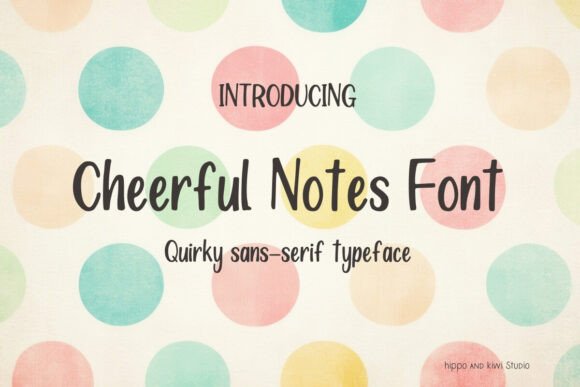
Introducing Cheerful Notes Font: A Playful Handwritten Font to Elevate Your Creative Work
Are you tired of using the same old fonts in your creative projects? Do you want to add a touch of personality and charm to your designs? Look no further than Cheerful Notes Font, a delightful handwritten font that’s perfect for a variety of applications. In this article, we’ll explore the features and benefits of Cheerful Notes, and show you how it can elevate your creative work.
What is Cheerful Notes Font?
Cheerful Notes Font is a playful handwritten font designed to add a touch of whimsy and charm to your creative projects. Its slightly quirky letterforms and natural flow make it perfect for a wide range of applications, from greeting cards and planners to social media graphics and print-on-demand designs.
Ideal Use Cases for Cheerful Notes Font
- Greeting Cards: Add a personal touch to your greeting cards with Cheerful Notes Font. Its playful and cheerful design makes it perfect for birthdays, holidays, and special occasions.
- Planners and Stickers: Use Cheerful Notes Font to add a touch of personality to your planners and stickers. Its fun and quirky design makes it perfect for bullet journaling, to-do lists, and other DIY projects.
- Scrapbooking: Cheerful Notes Font is a great addition to any scrapbooking project. Its natural flow and handwritten design make it perfect for journaling, captions, and other creative elements.
- Branding and Social Media Graphics: Use Cheerful Notes Font to add a touch of personality to your brand’s social media graphics. Its playful design makes it perfect for creating engaging and shareable content.
- Print-on-Demand Designs: Cheerful Notes Font is great for print-on-demand designs, such as t-shirts, mugs, and phone cases. Its fun and quirky design makes it perfect for creating unique and eye-catching products.
Benefits of Using Cheerful Notes Font
- Easy to Use: Cheerful Notes Font comes with uppercase, lowercase, numbers, and punctuation, making it easy to use for a wide range of projects.
- Unique and Eye-Catching: Cheerful Notes Font has a unique and eye-catching design that will set your projects apart from the rest.
- Versatile: Cheerful Notes Font is versatile and can be used for a wide range of applications, from digital projects to print materials.
- Hand-Drawn Touch: Cheerful Notes Font has a hand-drawn touch that adds a personal and whimsical element to your designs.
Tips and Tricks for Using Cheerful Notes Font
- Experiment with Colors: Cheerful Notes Font looks great in a variety of colors. Experiment with different color combinations to find the perfect look for your project.
- Mix and Match: Don’t be afraid to mix and match Cheerful Notes Font with other fonts to create a unique and eye-catching design.
- Use it for Headlines and Body Text: Cheerful Notes Font is great for both headlines and body text. Use it to create a cohesive and visually appealing design.
In conclusion, Cheerful Notes Font is a playful handwritten font that’s perfect for adding a touch of personality and charm to your creative projects. Its slightly quirky letterforms and natural flow make it ideal for a wide range of applications, from greeting cards and planners to social media graphics and print-on-demand designs. With its easy-to-use design and versatile nature, Cheerful Notes Font is a great addition to any creative project.